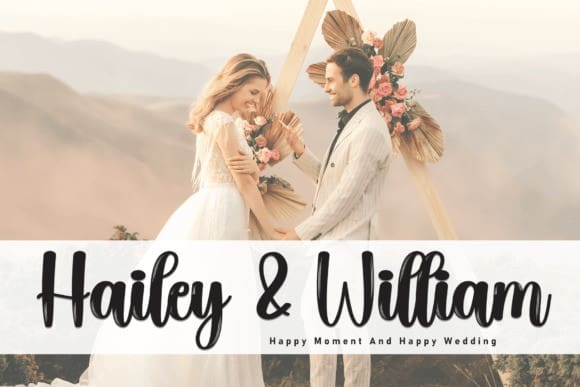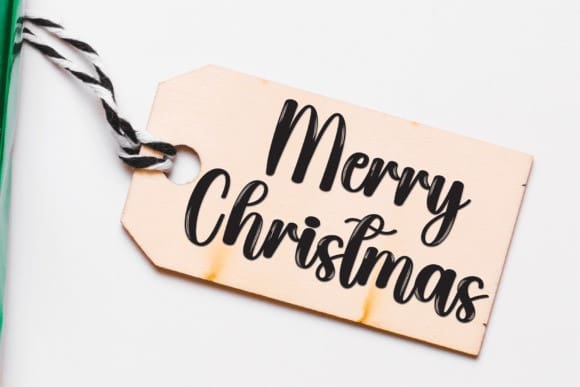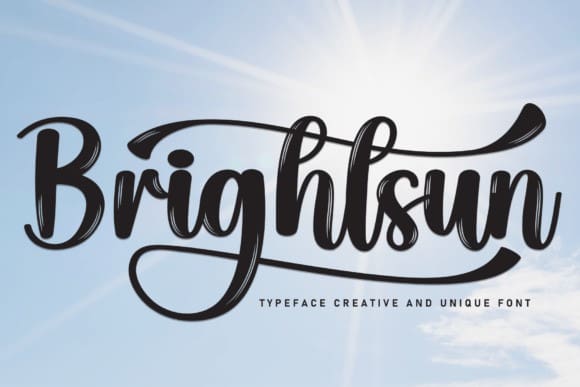
Brightsun Script Font
Brightsun Script Font is an exquisite handwritten font, masterfully designed to become a true favorite. It maintains its classy calligraphic influences while feeling contemporary and fresh. Fall in love with it and bring your projects to the highest levels